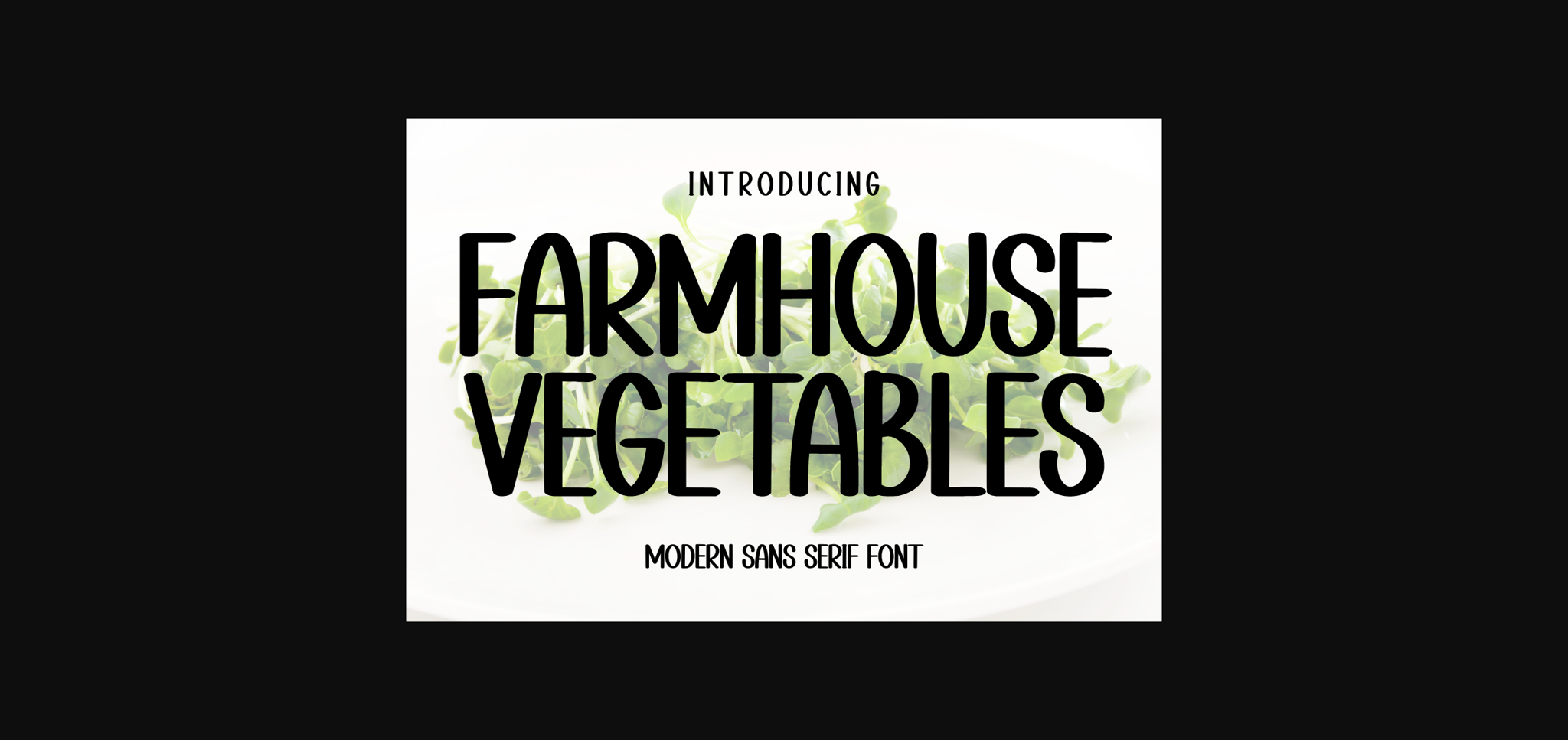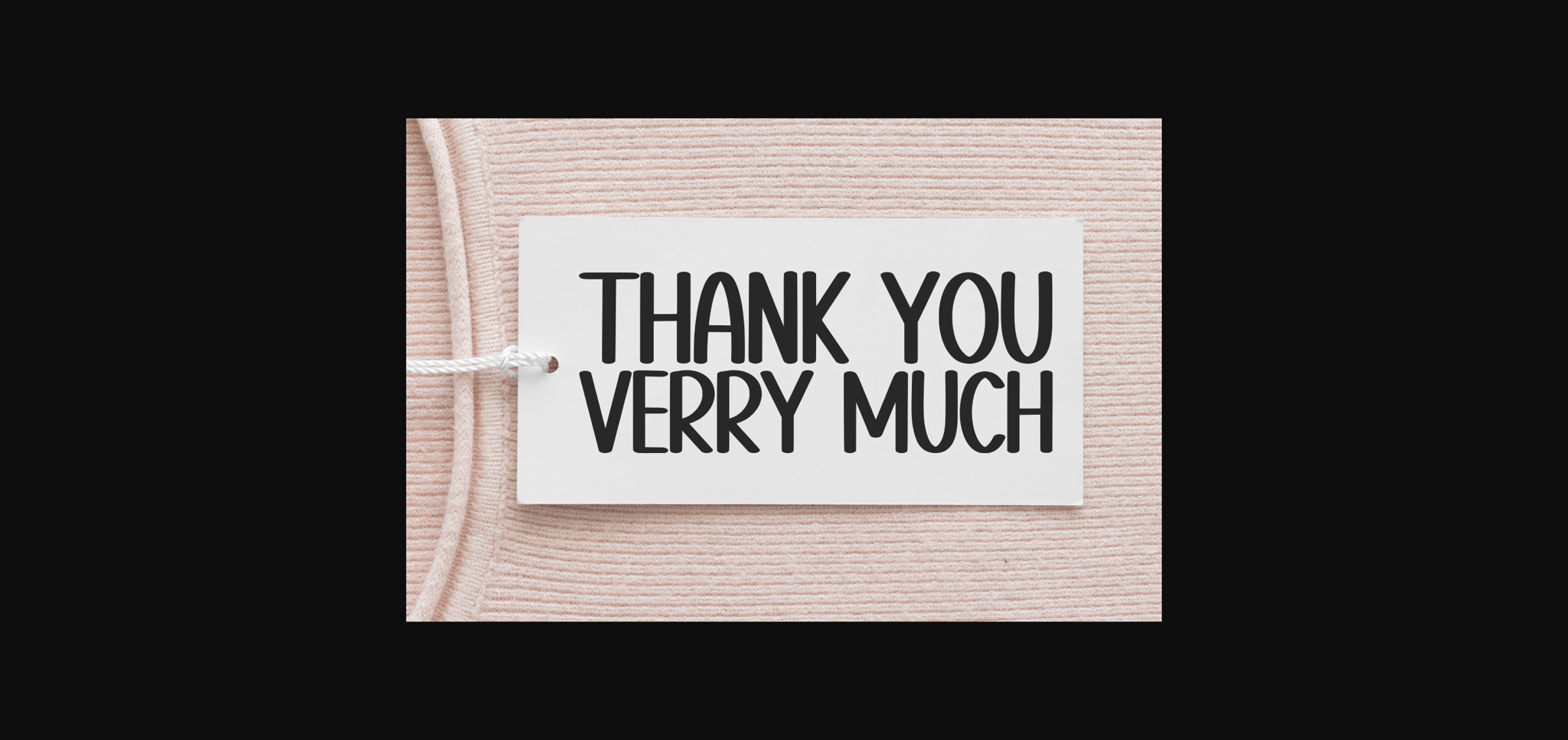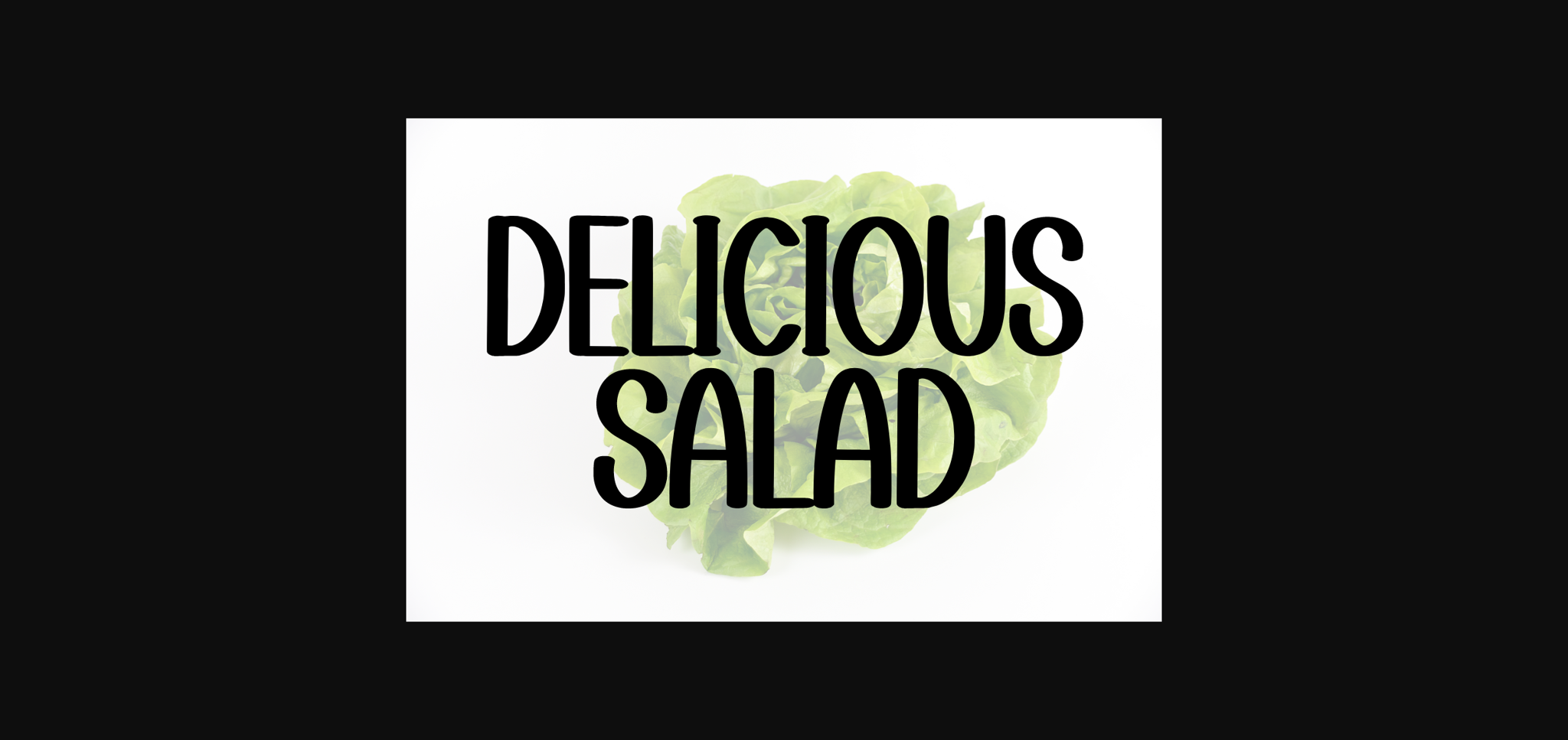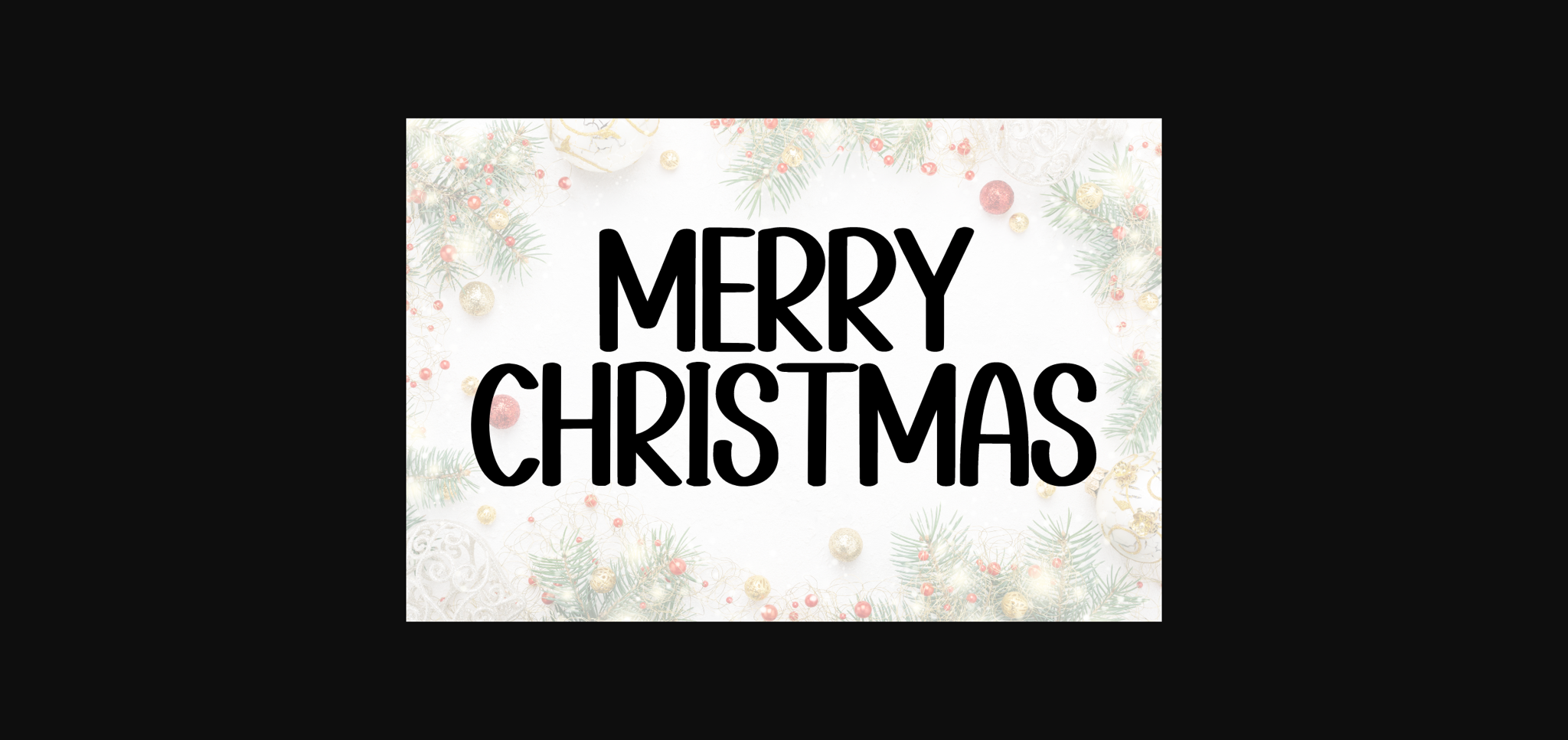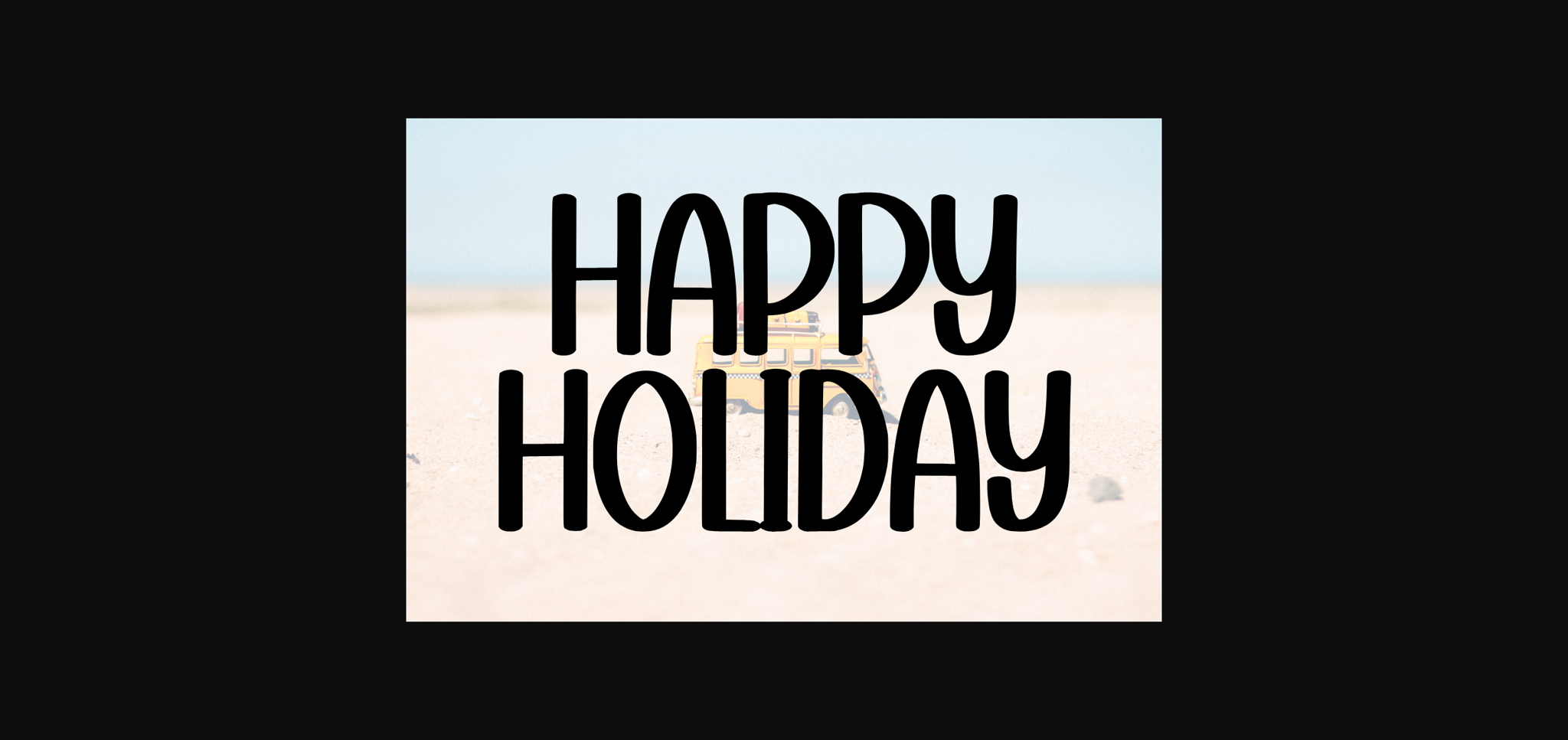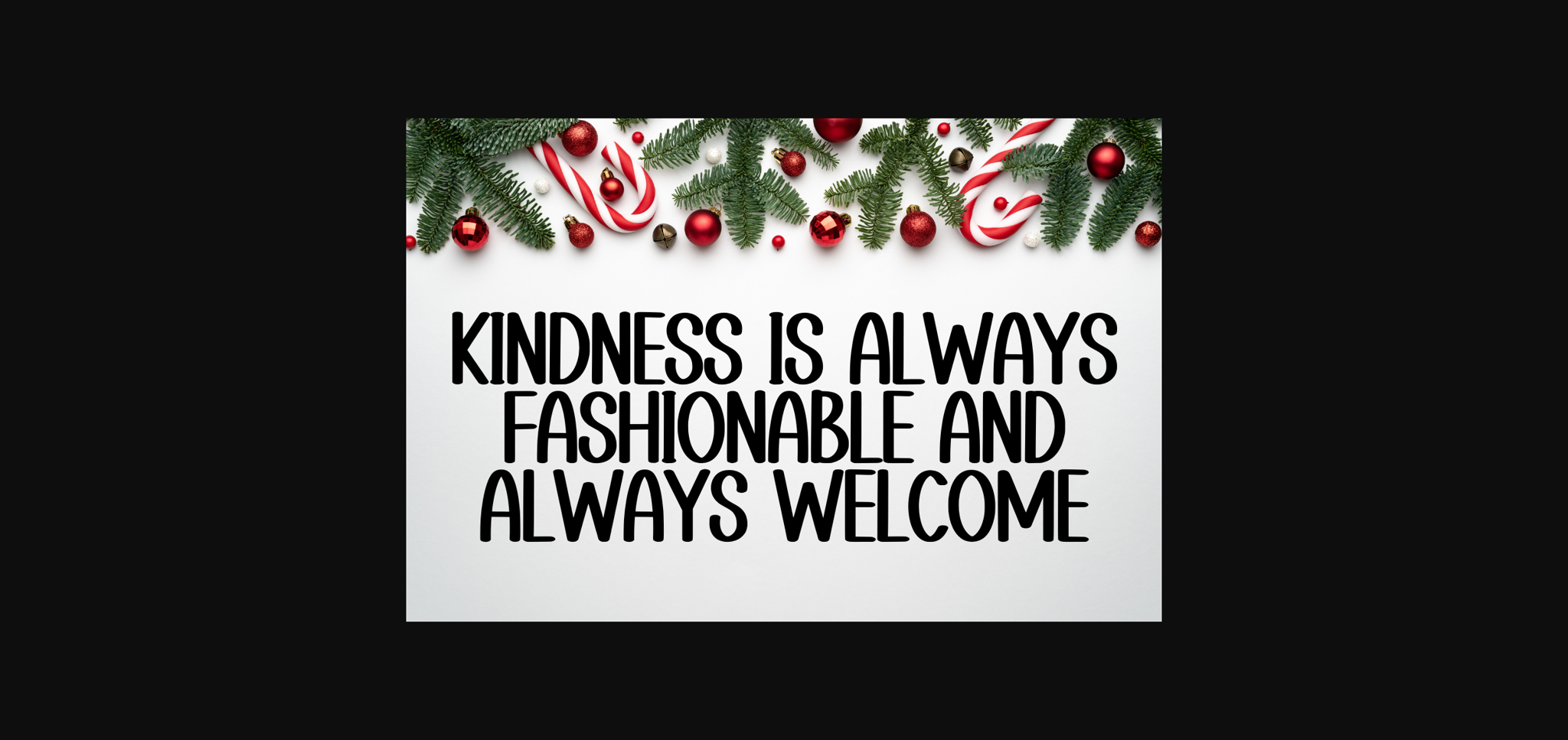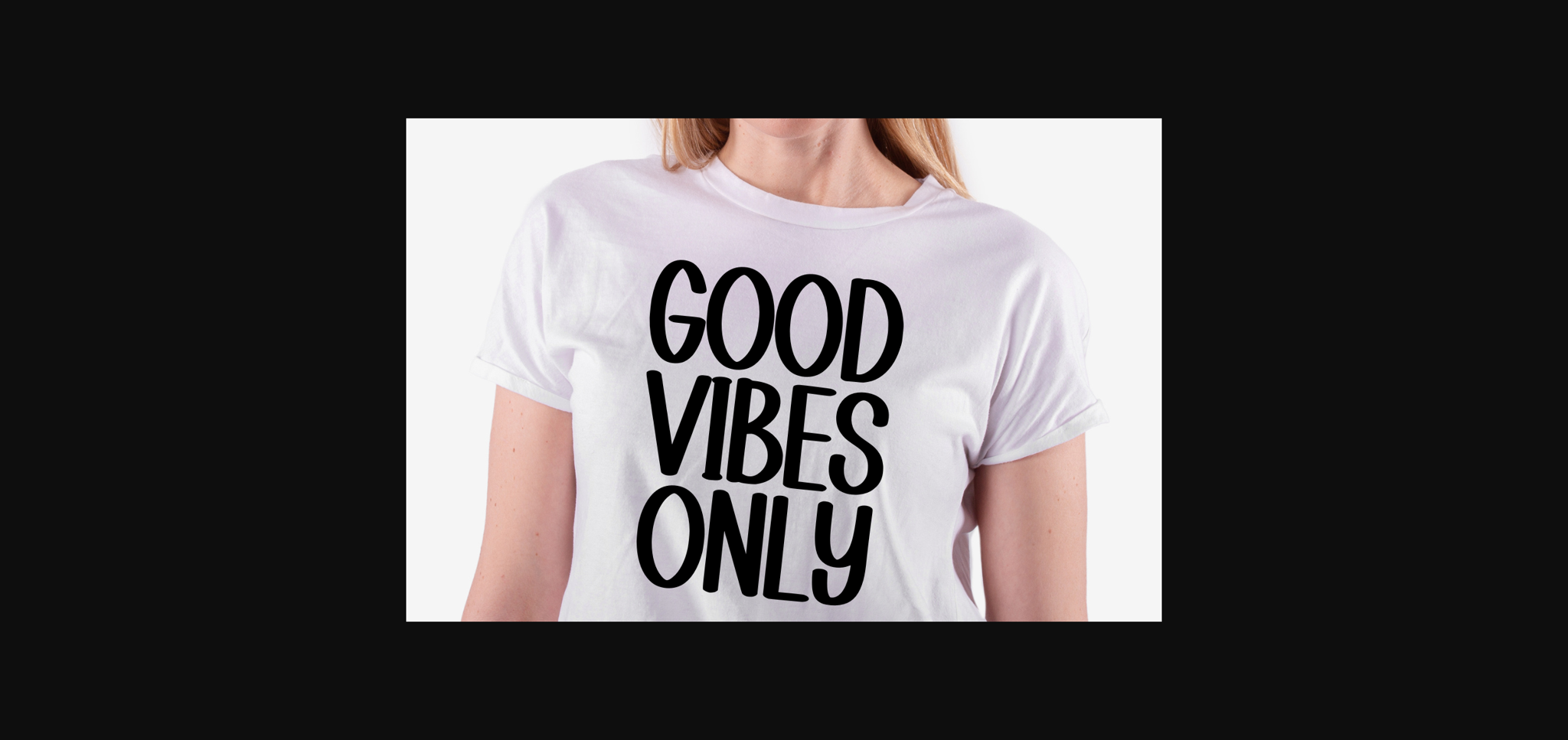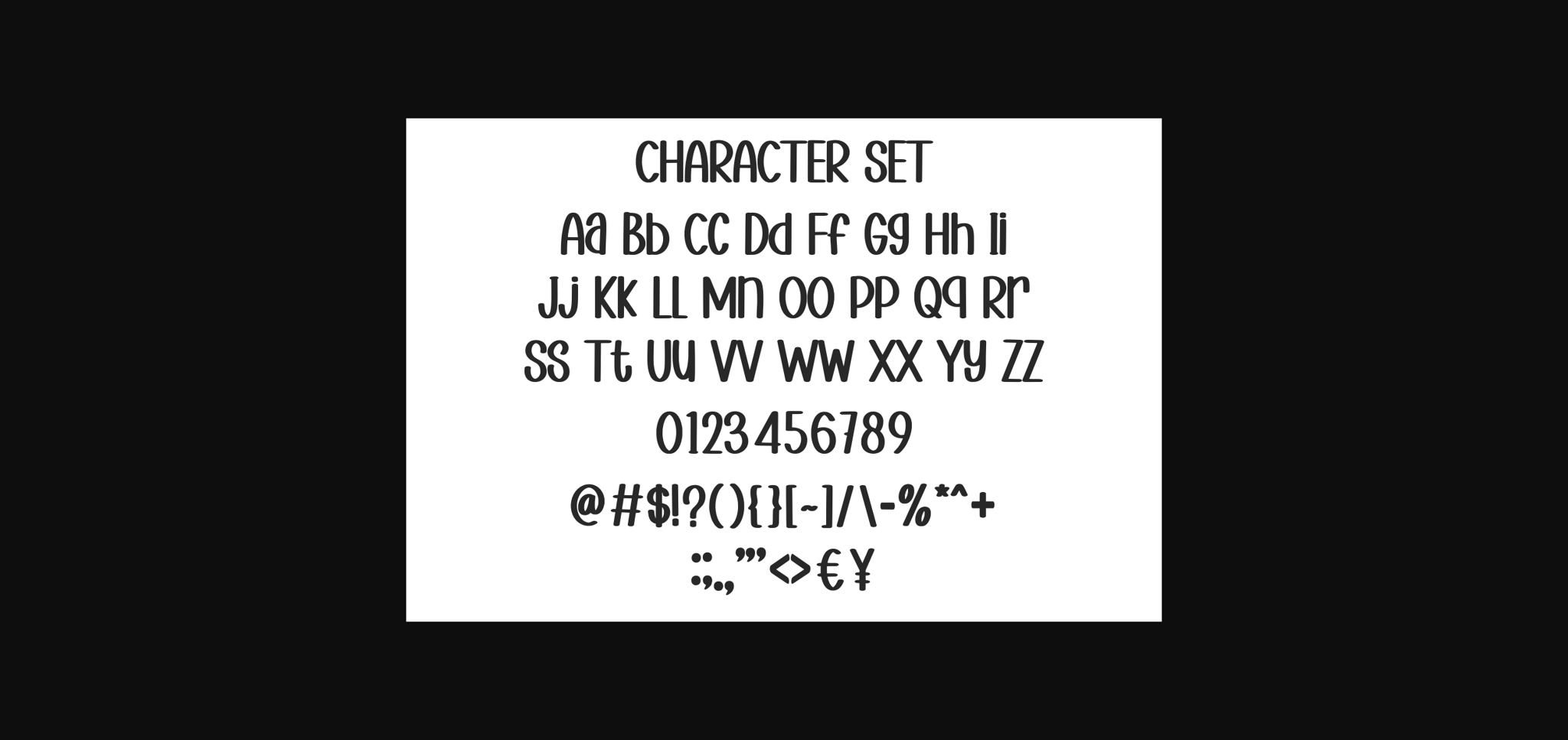
Farmhouse Vegetables Font
About Farmhouse Vegetables Font
Farmhouse Vegetables is a fun and unique serif font. Add to your ideas, and enjoy the results! It will look great on cards, promotional ads, social media posts, product packaging, and more.